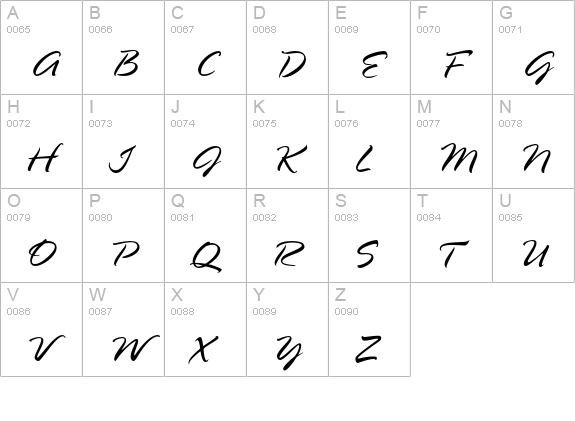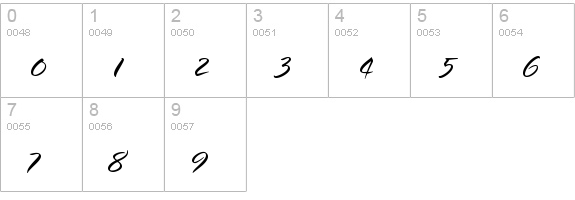
Spring LP Light is a refined, elegant variant in the Spring typeface family \xE2\x80\x94 well suited to elegant body text, refined sub-headings, and luxury branding.
Introducing Spring LP Light, a beautifully crafted font that captures the essence of the blooming season. With its delicate and graceful strokes, this font exudes a sense of freshness and rejuvenation that perfectly embodies the spirit of spring. The Spring LP Light font is a versatile typeface that can effortlessly enhance any design project. Whether you're creating invitations for a garden wedding, designing a logo for a floral boutique, or crafting a spring-themed advertisement, this font is sure to add a touch of elegance and charm. What makes Spring LP Light even more appealing is that it is freely available to download at FontsMarket.com. That's right, you can now enjoy the beauty and versatility of this font without any cost. It's the perfect opportunity to add a touch of springtime magic to your creative endeavors, without breaking the bank. With its clean and legible letterforms, Spring LP Light offers excellent readability both in print and on-screen. Its soft curves and gentle strokes create a harmonious balance, making it a pleasure to read and work with. Whether you're a seasoned designer or just starting out, Spring LP Light is a font that will inspire and elevate your projects. Its timeless beauty and versatility make it a valuable addition to any font collection. So why wait? Download Spring LP Light for free at FontsMarket.com and let the joy of spring infuse your designs with a sense of renewal and beauty.